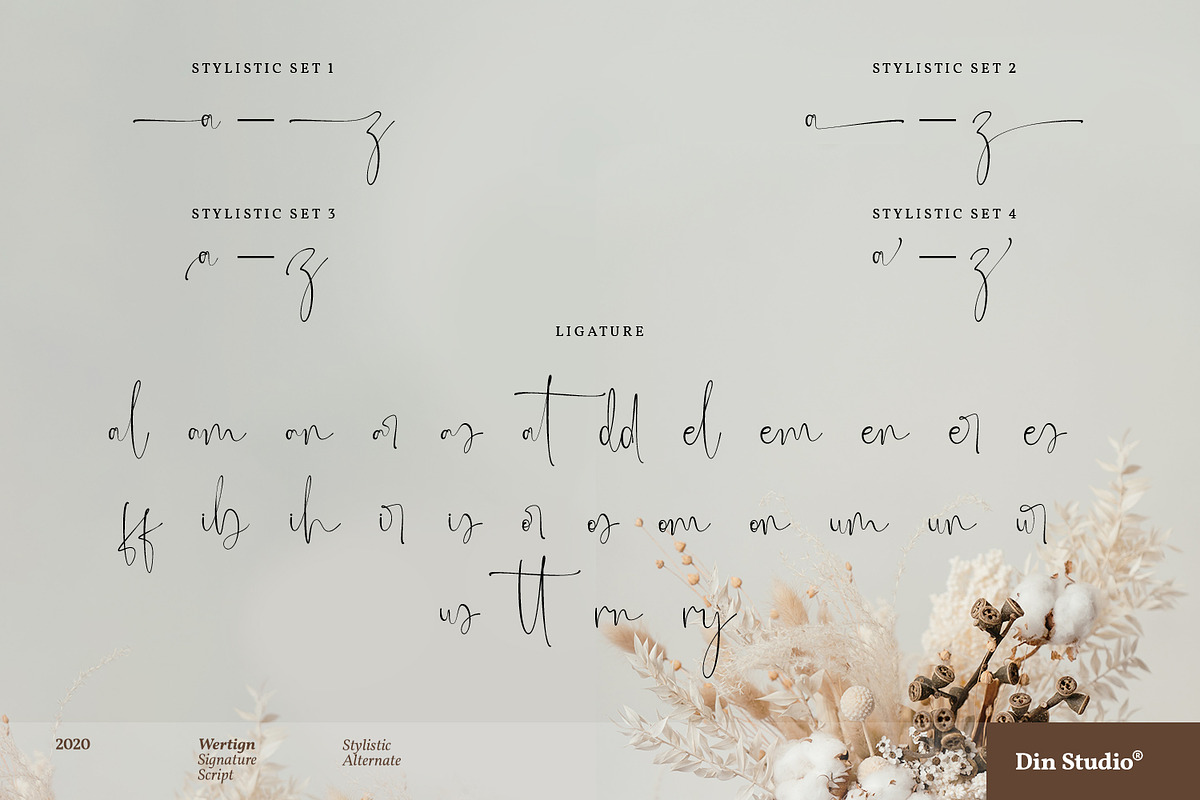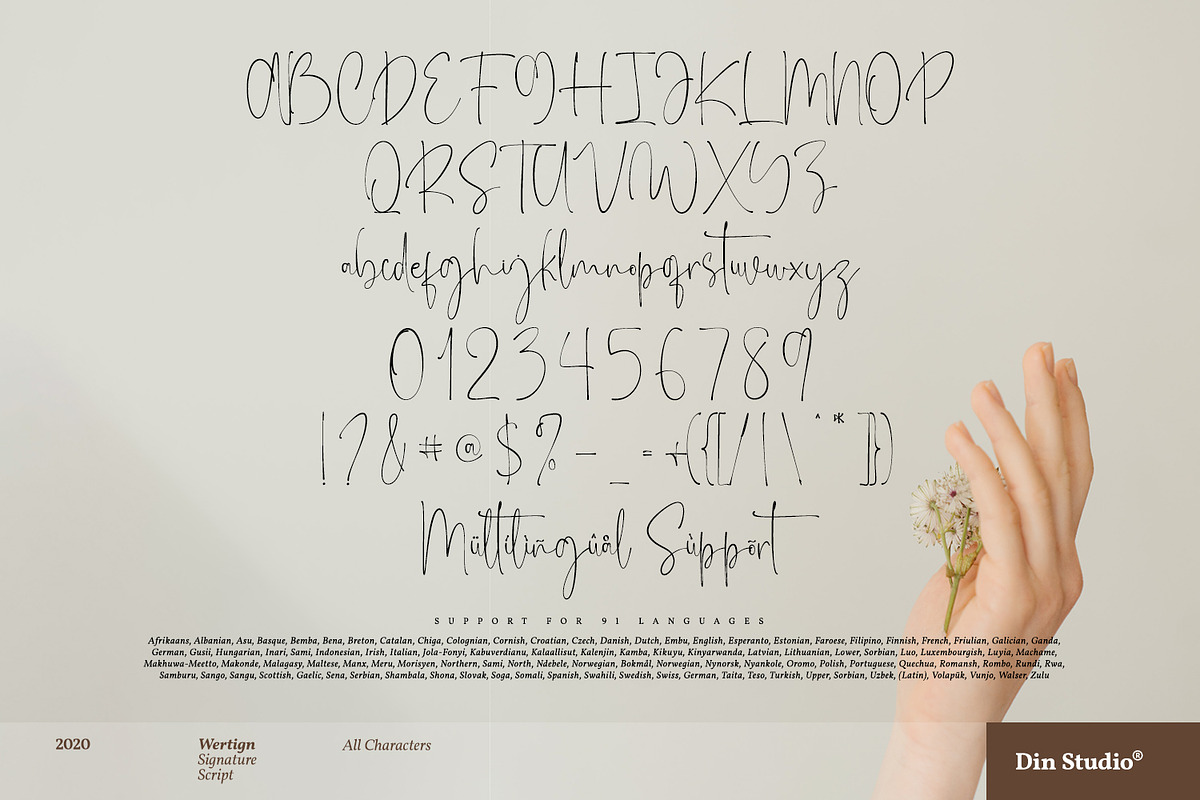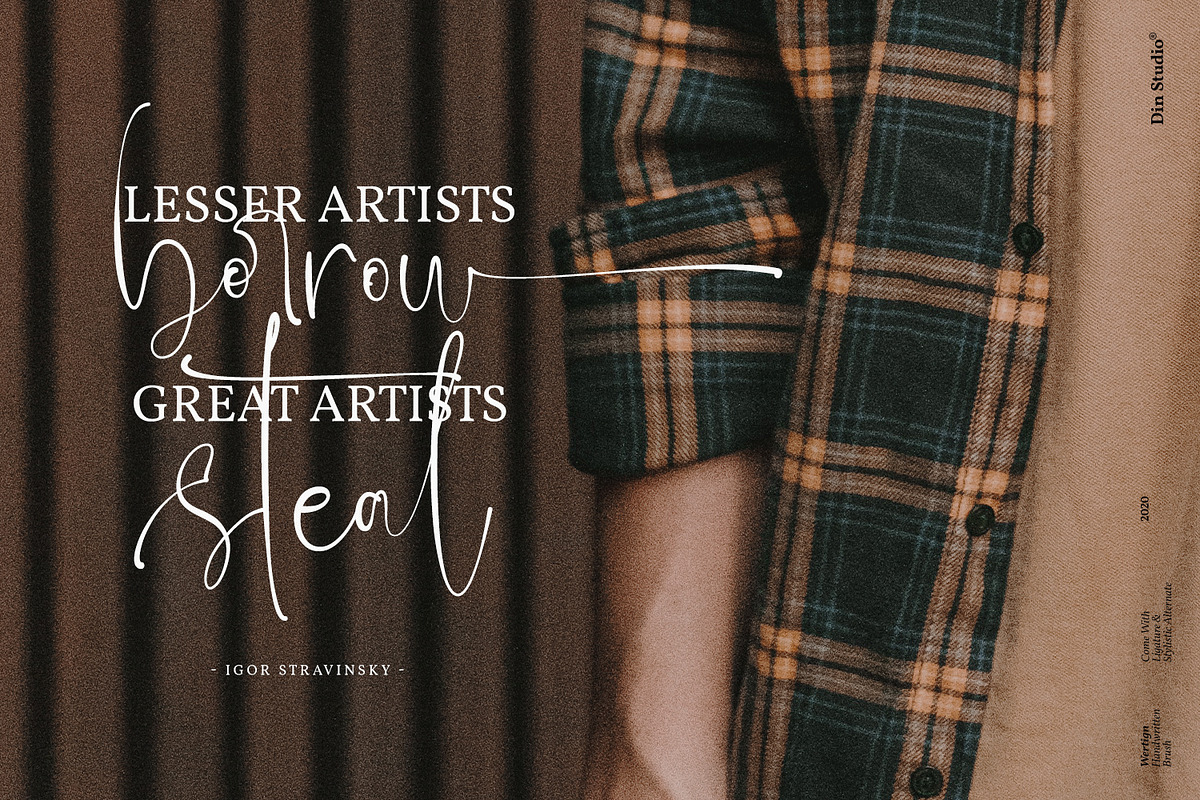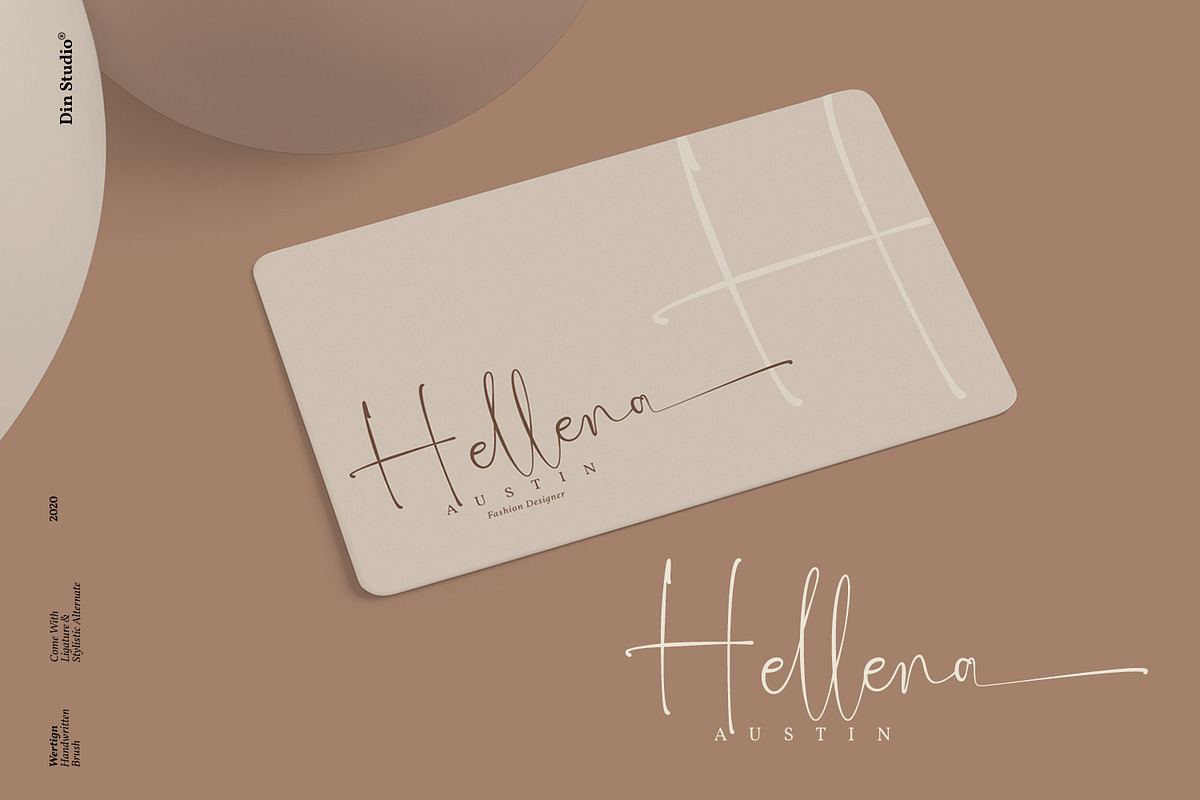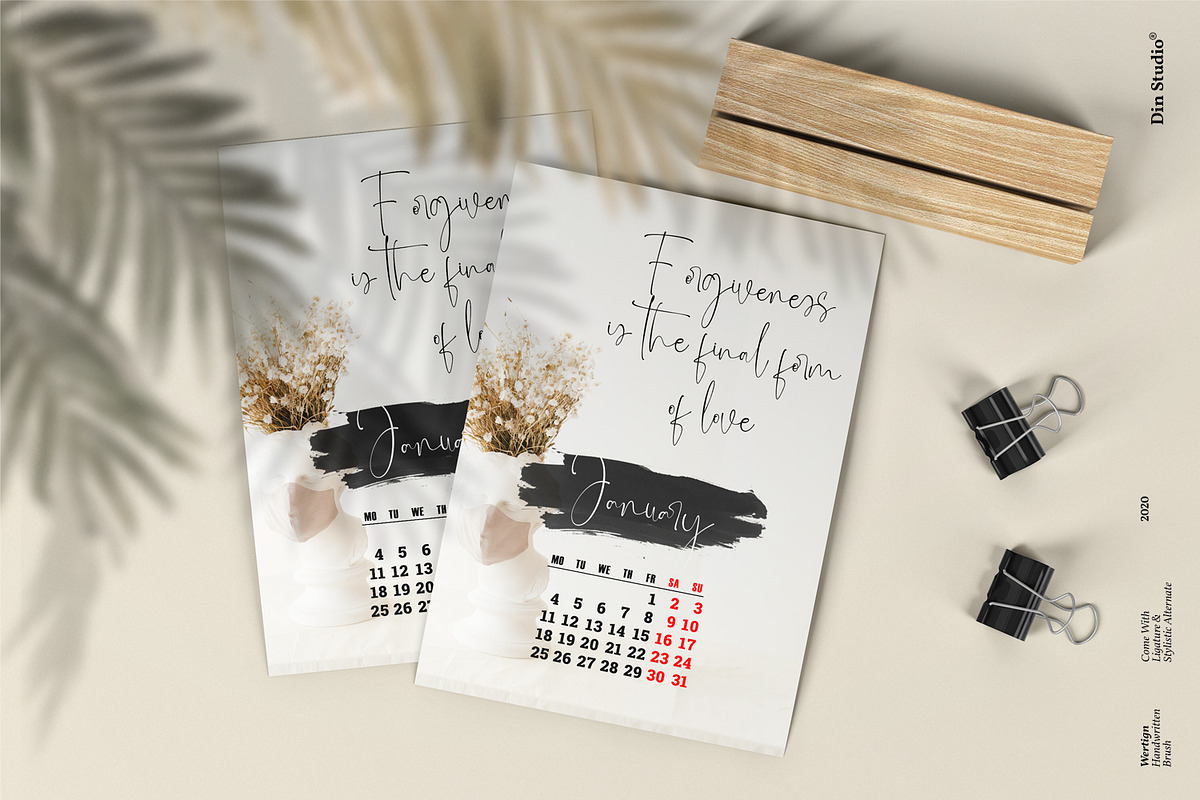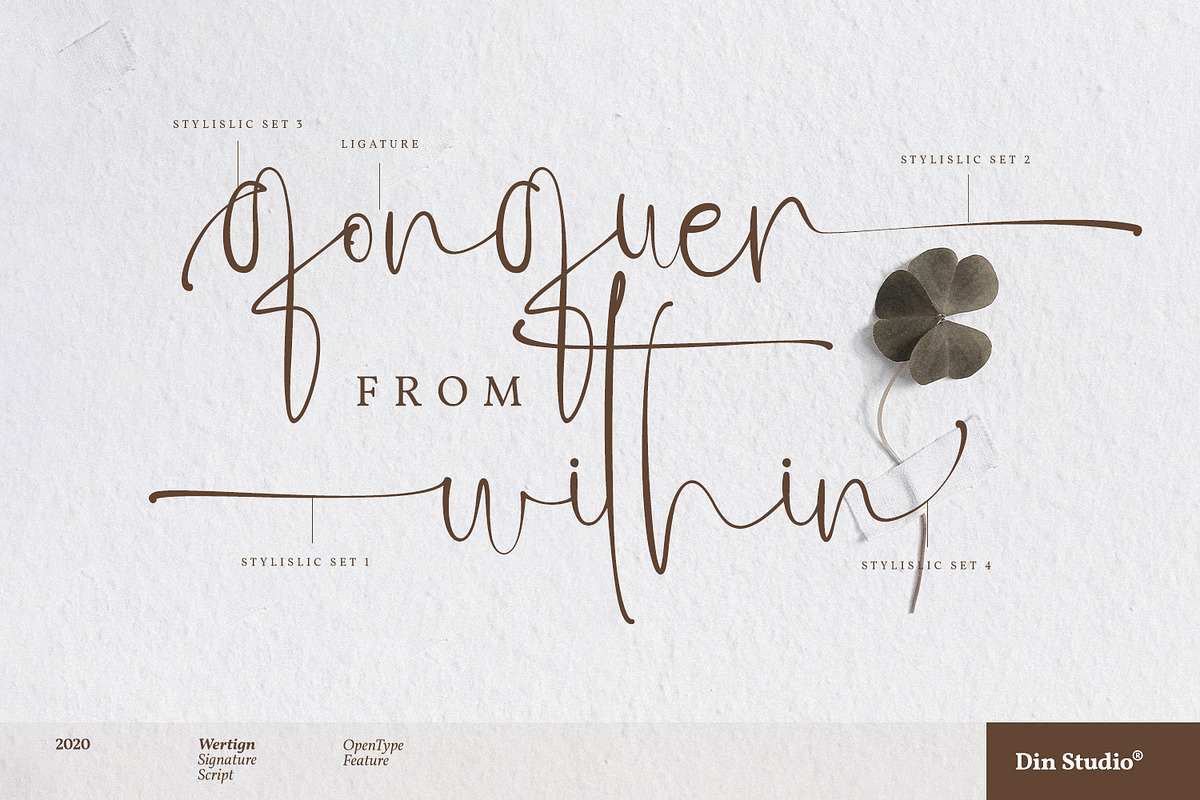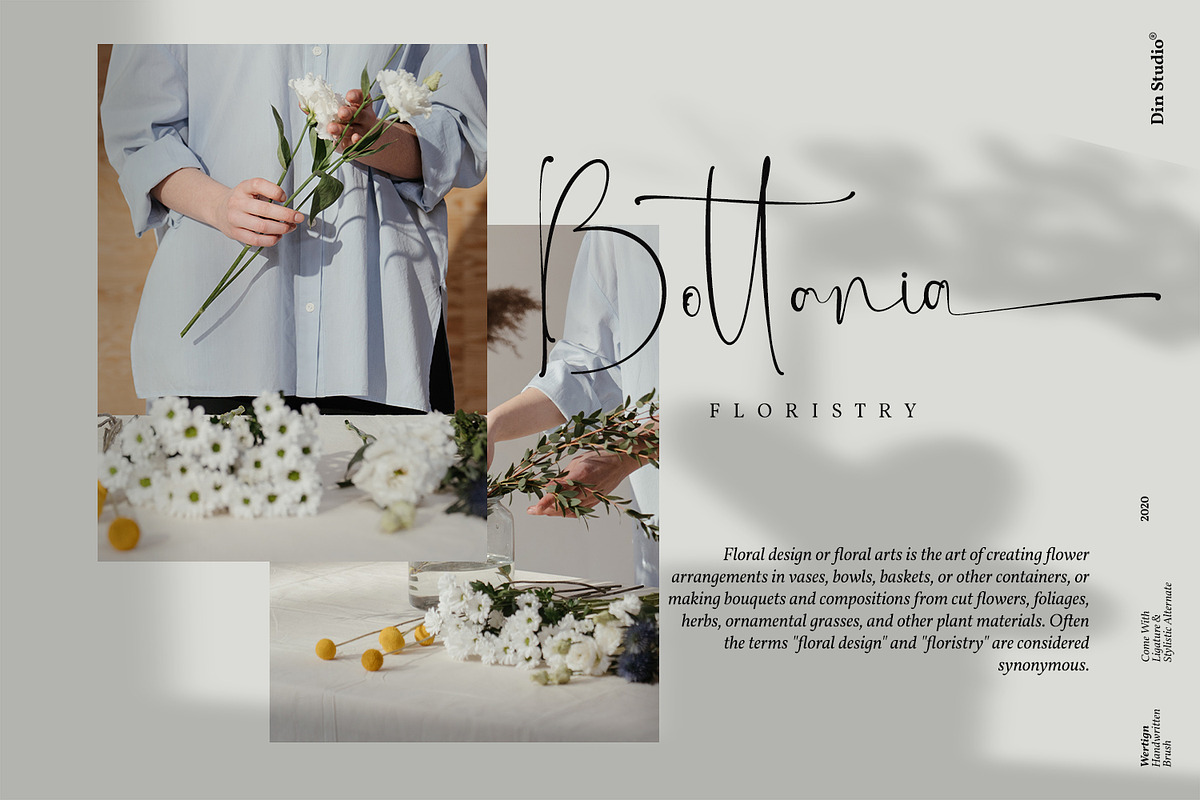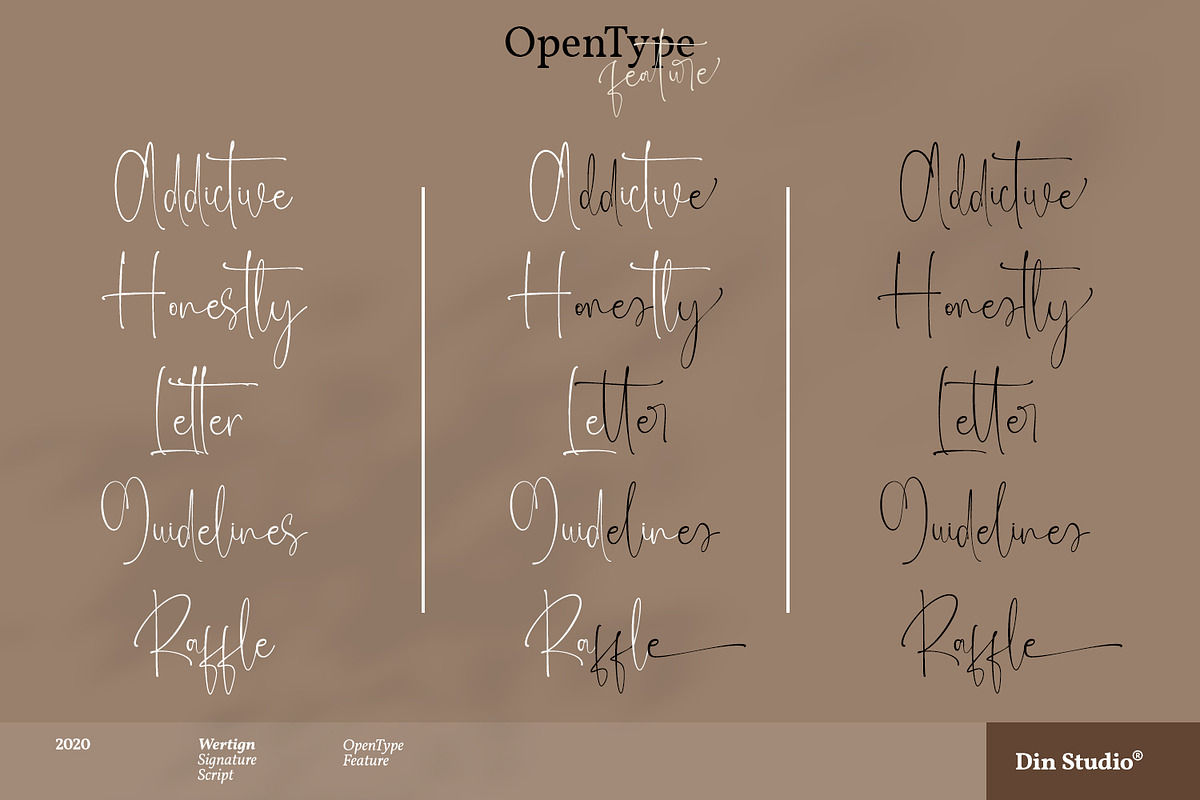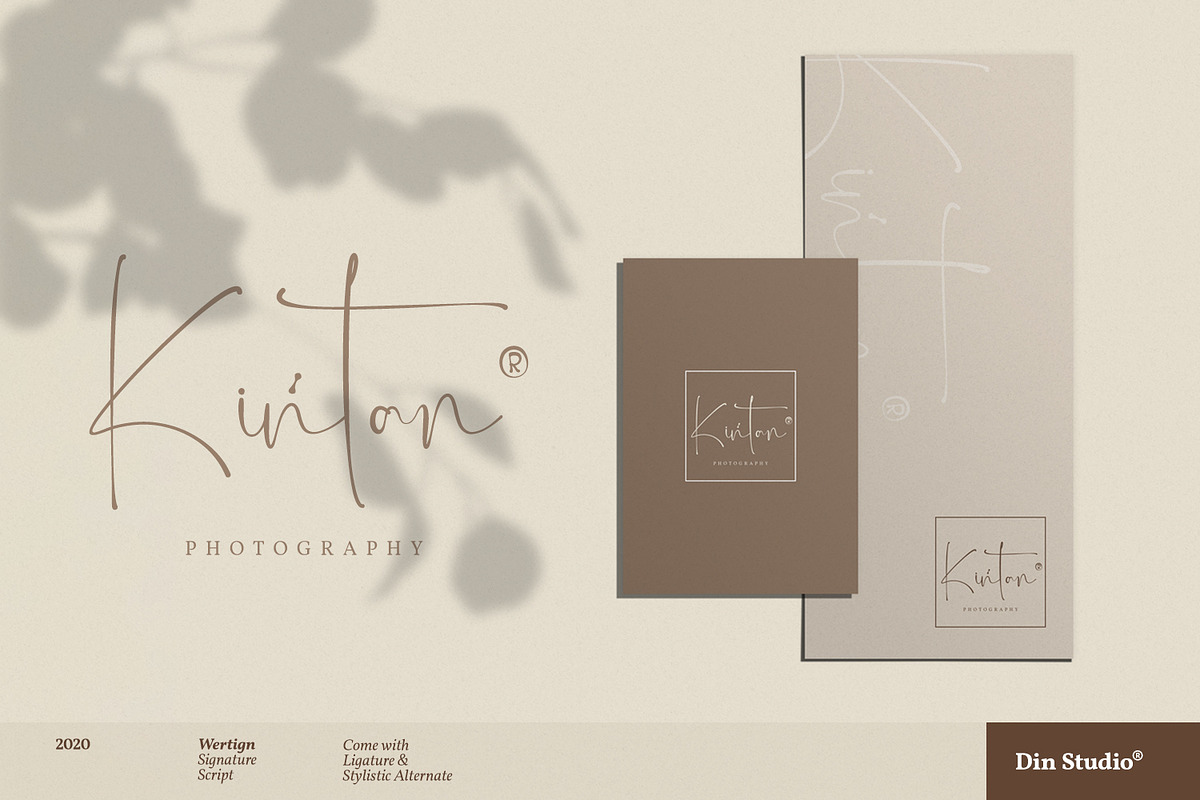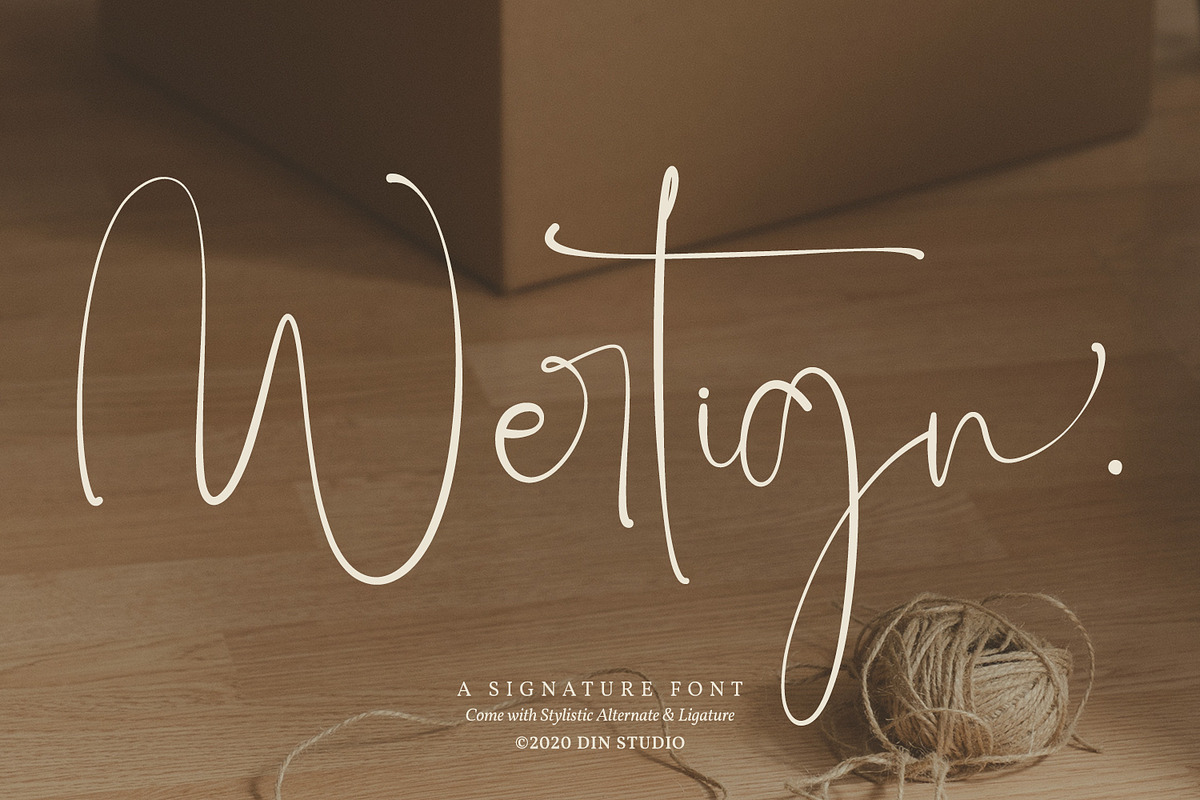
Wertign
Hi, Everyone! If you’re looking for a gorgeous font to attract your audiences or customers, we’ve got the font for you! Introducing Wertign – A Signature Font.
The handmade font in elegant typeface style looks very interesting for loads of different projects and promotions. It is perfect to use on your websites, social media brandings, Pinterest banners, printed products, and more!
- Beautiful Ligatures
- Stylistic Set